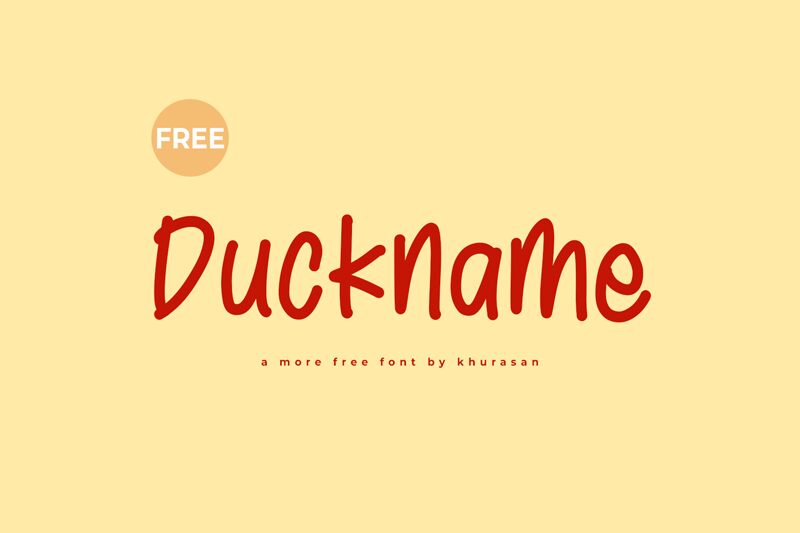
Duckname
Duckname, designed by Khurasan, captures the essence of personal touch in a semi-light and condensed handwritten font. Its aesthetic appeal lies in the delicate balance between casual flair and structured formality, making it a versatile choice for various creative endeavors. The artistry of Duckname is evident in its flowing lines that suggest the ease of ink on paper, while its condensed width allows for efficient use of space without sacrificing readability.
With an appearance that conveys warmth and approachability, Duckname is an excellent option for projects that require a humanized touch. From charming invitations to engaging marketing materials, this font lends itself to designs that benefit from an authentic handwritten feel. Whether applied to branding initiatives or personal blogs, Duckname's distinctive style enhances visual narratives with its inviting character.